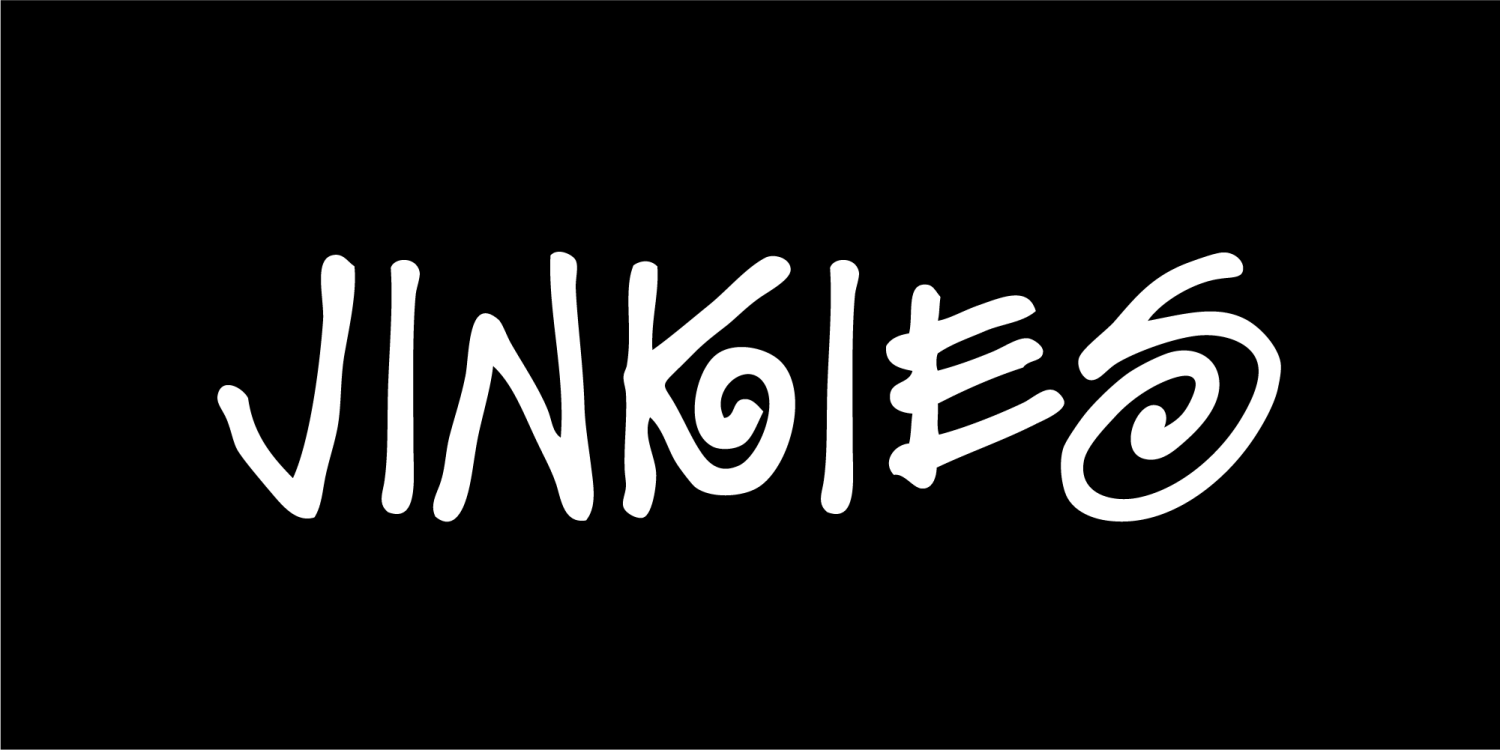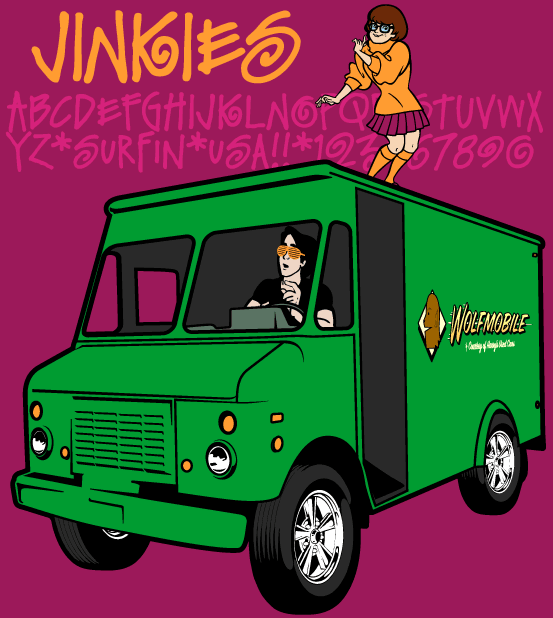
First the 70s were the big nostalgia thing, then the 80s. These days, everyone’s rocking 90s style like it’s throwback. Am I old or does it just seem like the 90s are still too new to be looked at as “retro”? At any rate, we’re celebrating with a great old school typeface. It’s got that bodacious 90s beach vibe that’ll make you want to dust off the shutter shades and go surfing on top of Stiles’ Wolfmobile. And if you aren’t getting the Velma/Jinkies reference or the Teen Wolf drops, then yeah, the 90s are definitely very retro…to you.